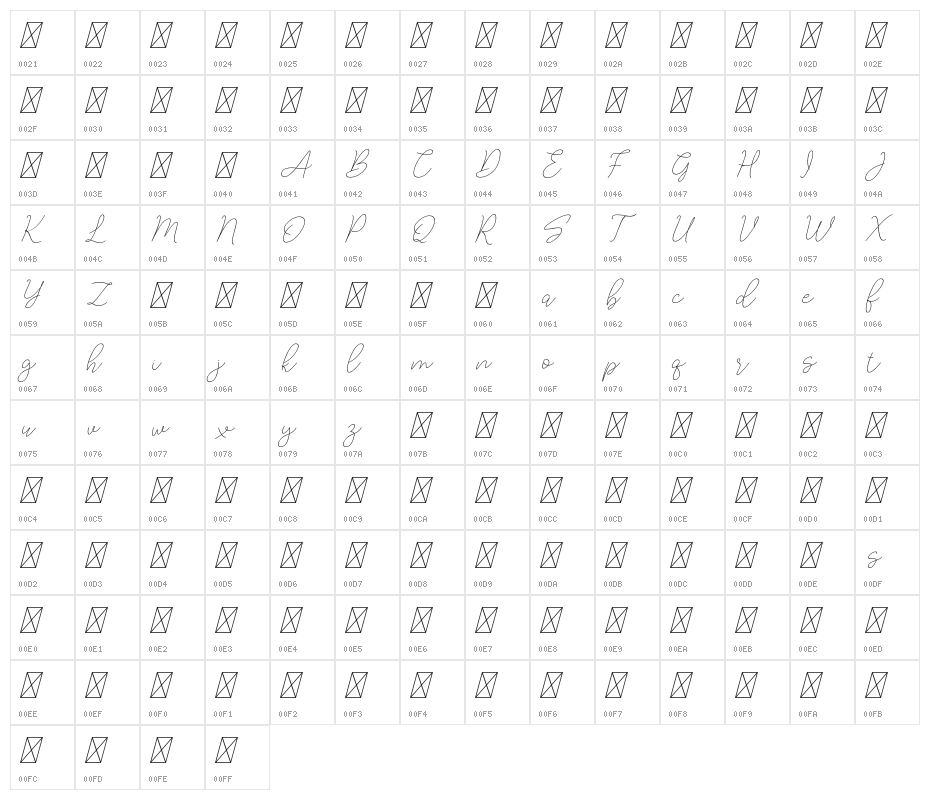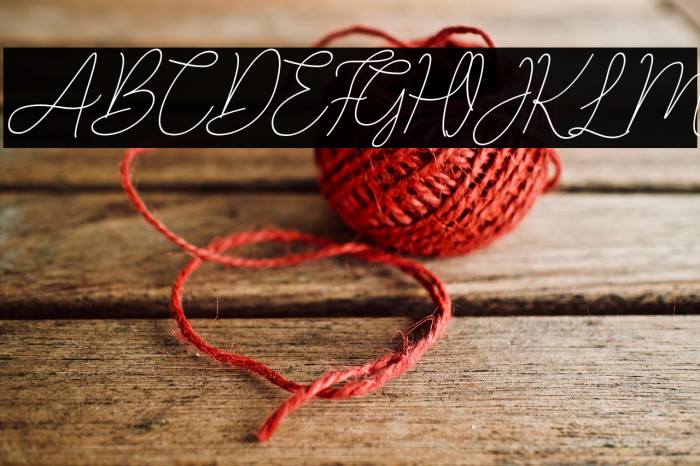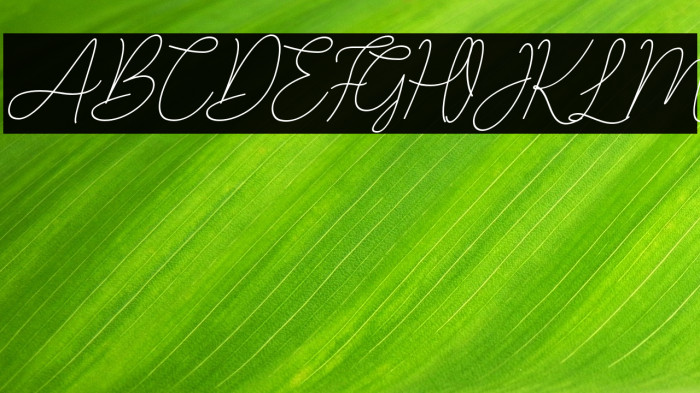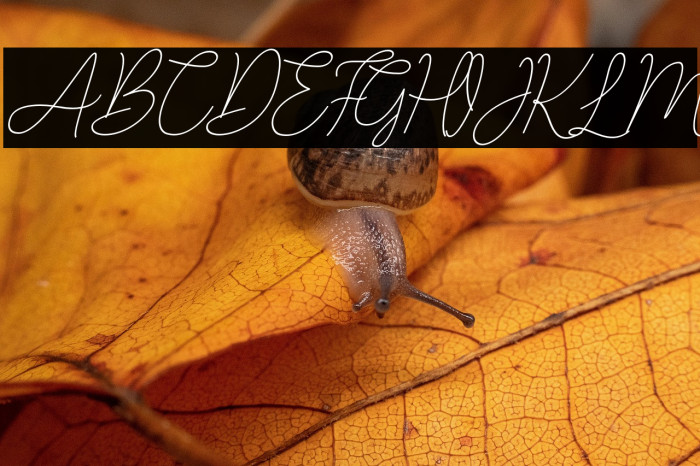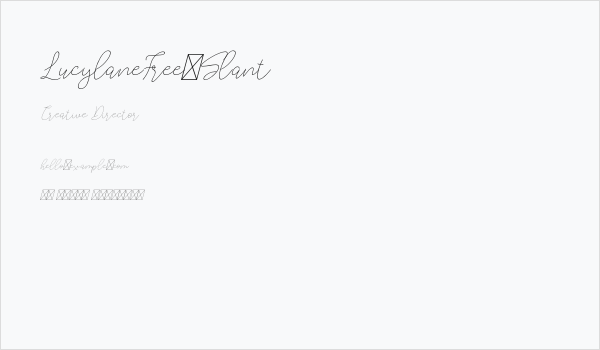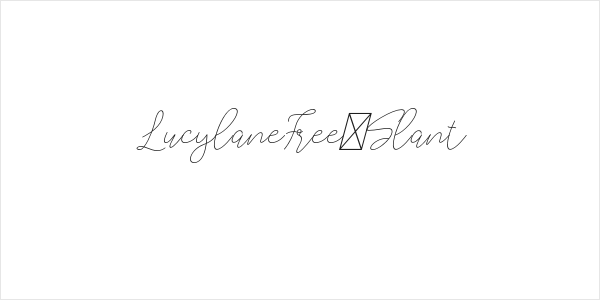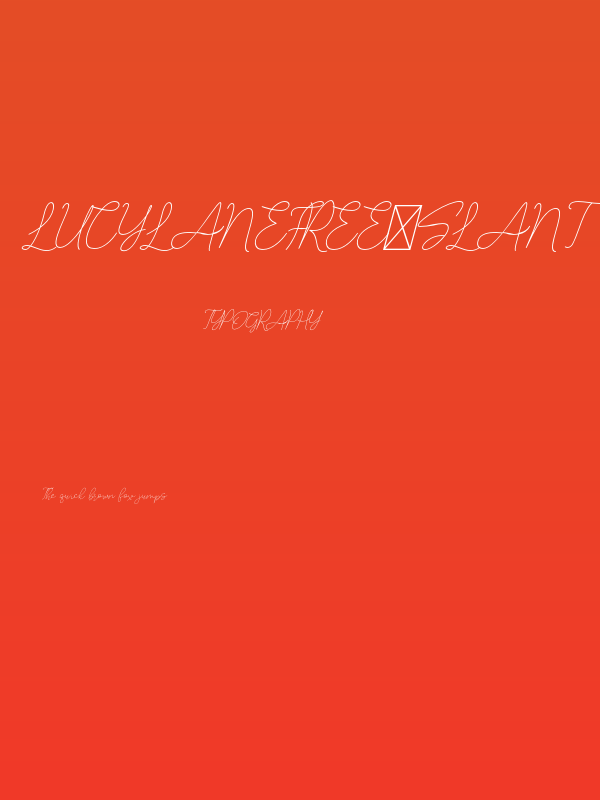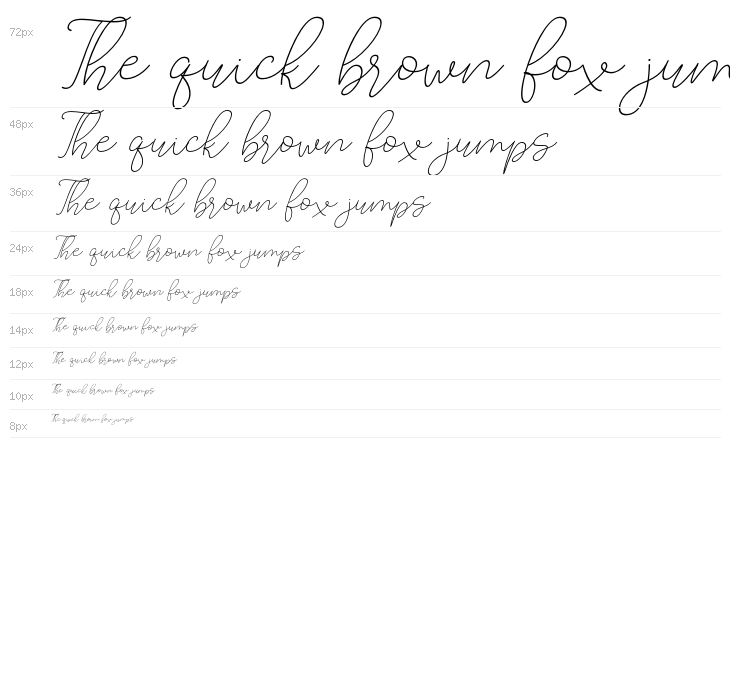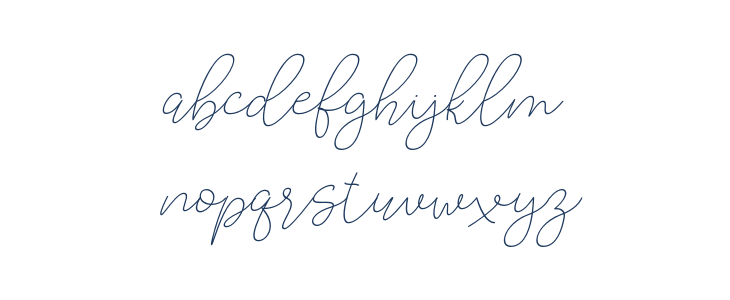
LucylaneFree-Slant Font
LucylaneFree-Slant Description
This elegant script font features a flowing, cursive style with a distinct slant, giving it a sophisticated and graceful appearance. The letters are interconnected, creating a seamless and fluid look that is both stylish and readable. The uppercase letters are slightly larger and more ornate, while the lowercase letters maintain a consistent and smooth flow. The font's thin strokes and delicate curves add a touch of elegance, making it suitable for formal and decorative applications. The overall design is modern yet timeless, perfect for adding a personal touch to any project.
| Overall Style | Elegant, Modern |
| Proposed Projects | Ideal for wedding invitations, greeting cards, branding, and elegant logo designs. |